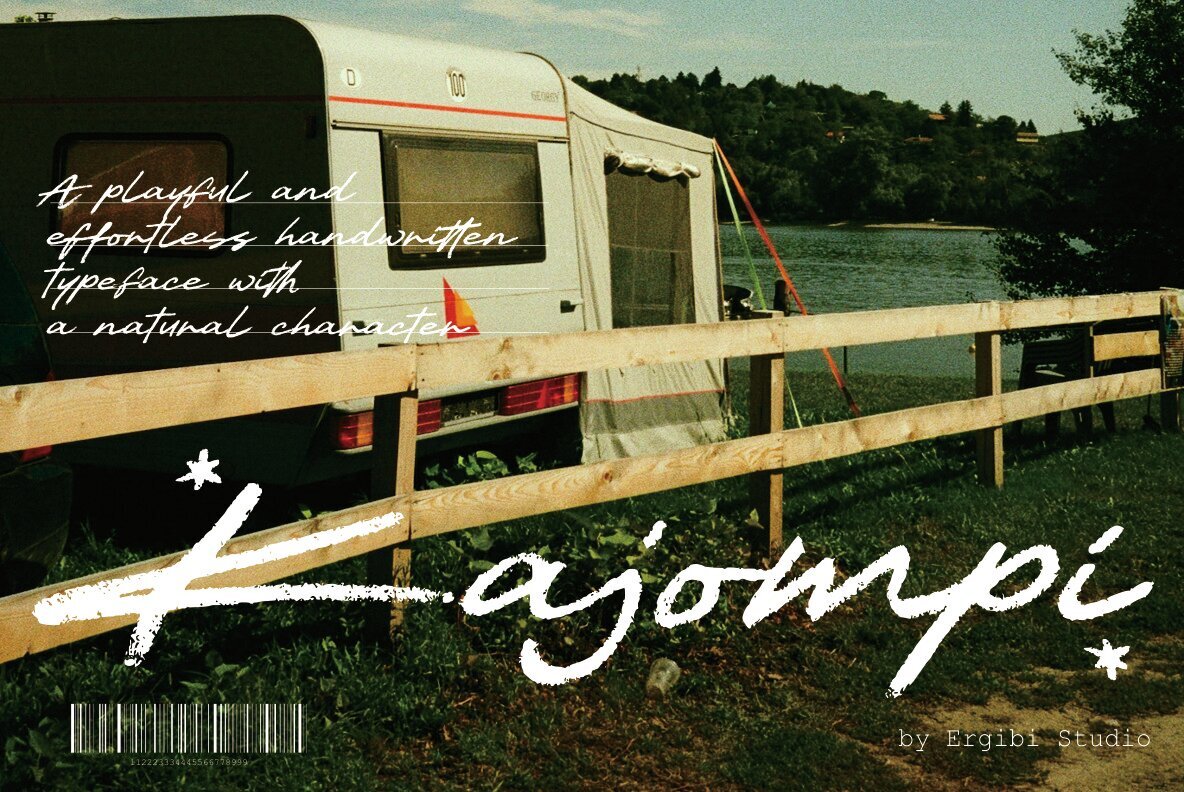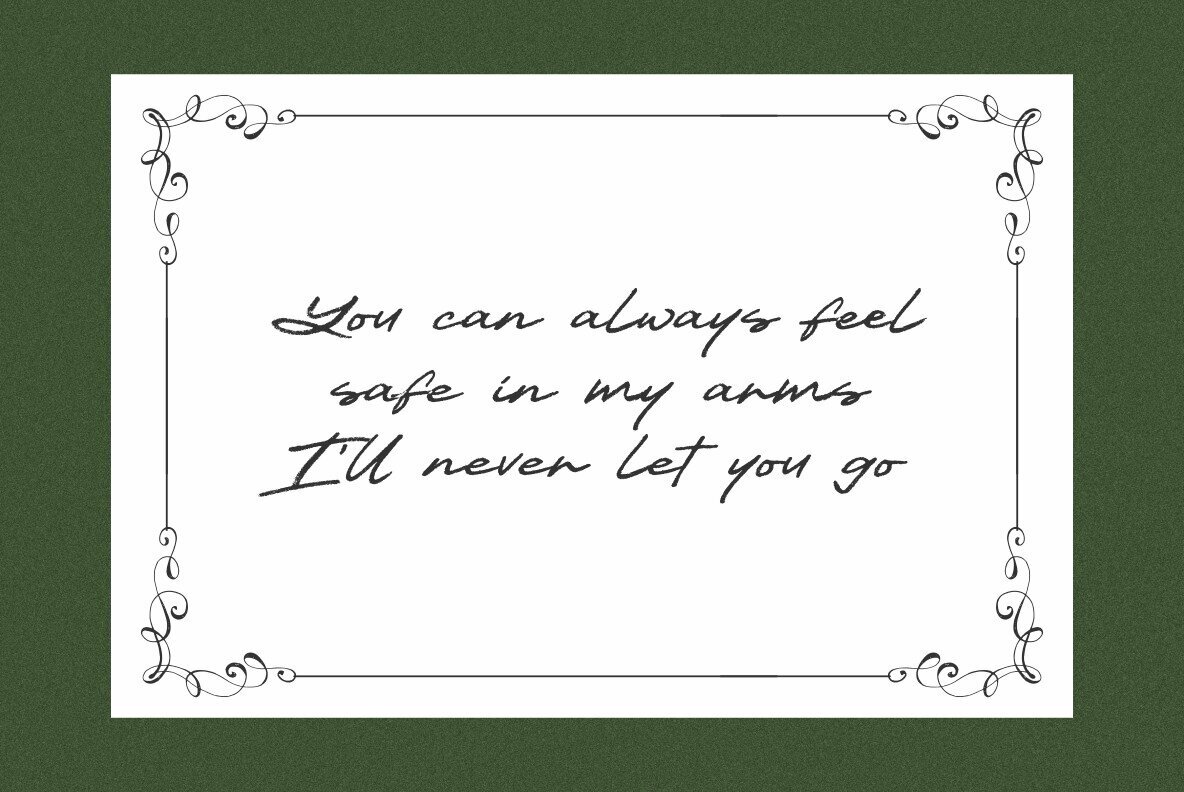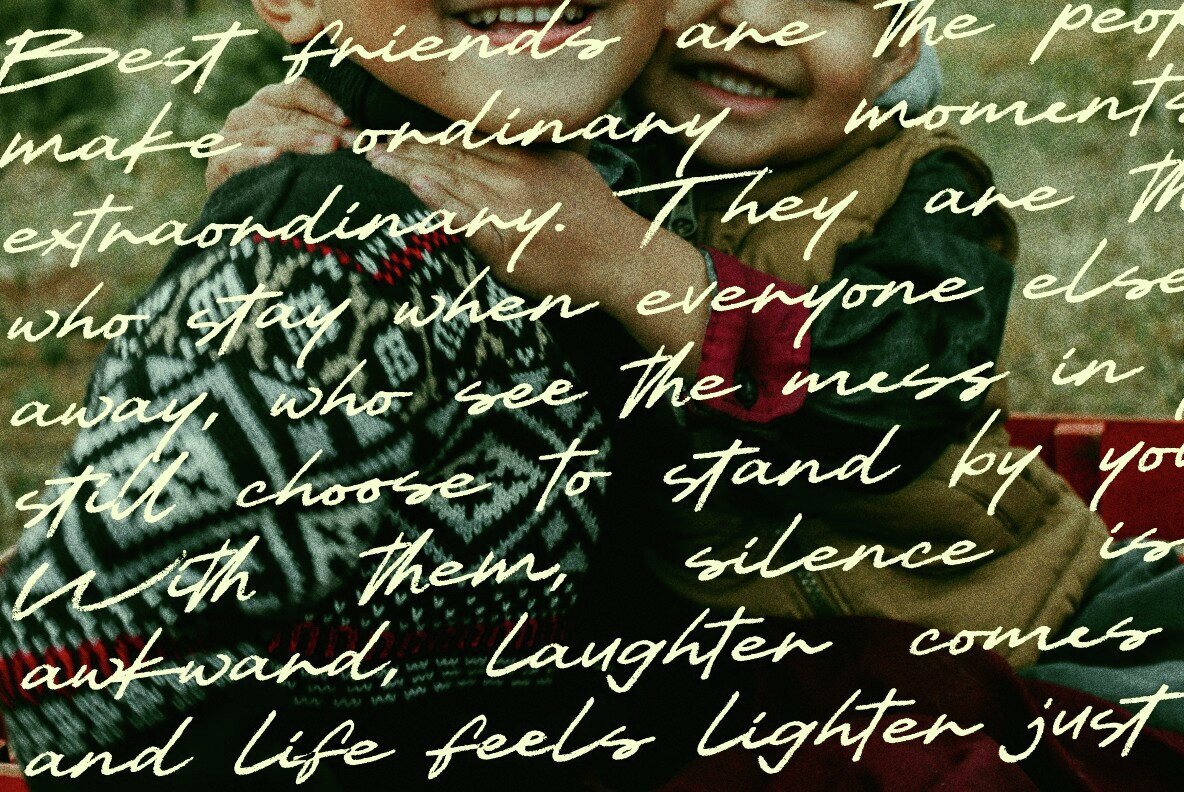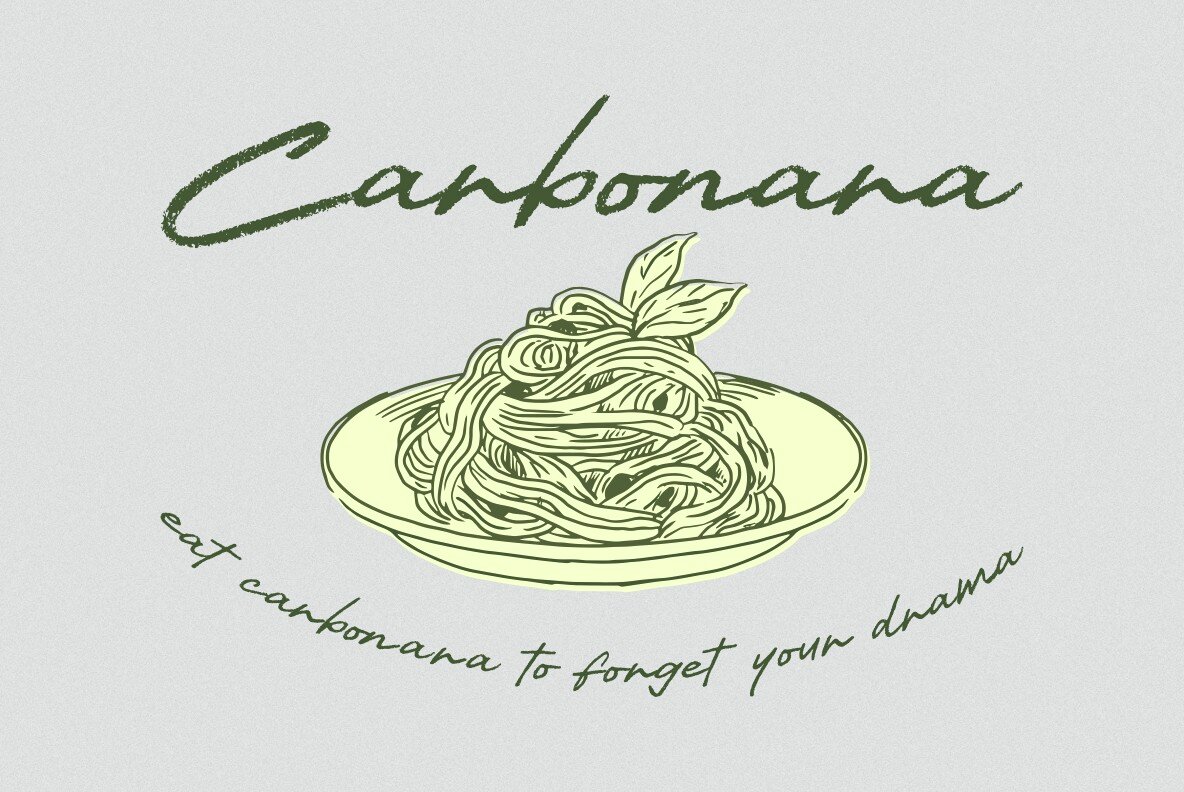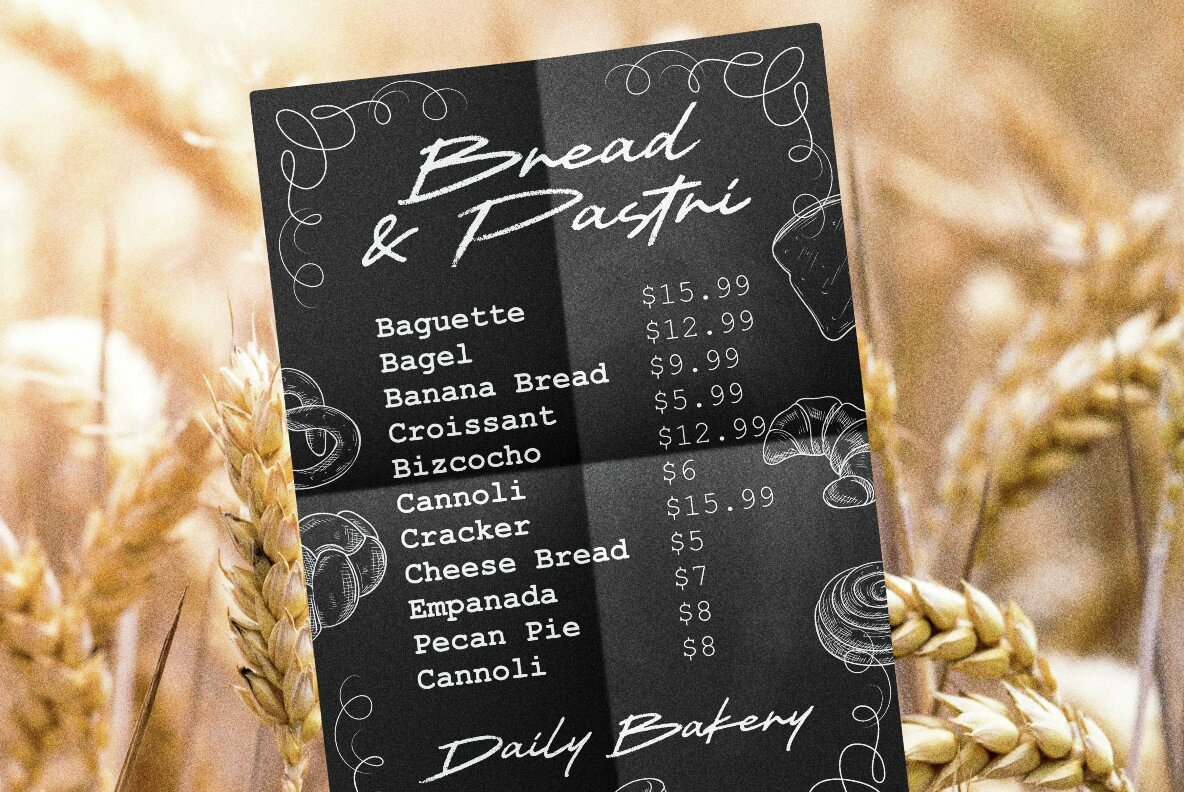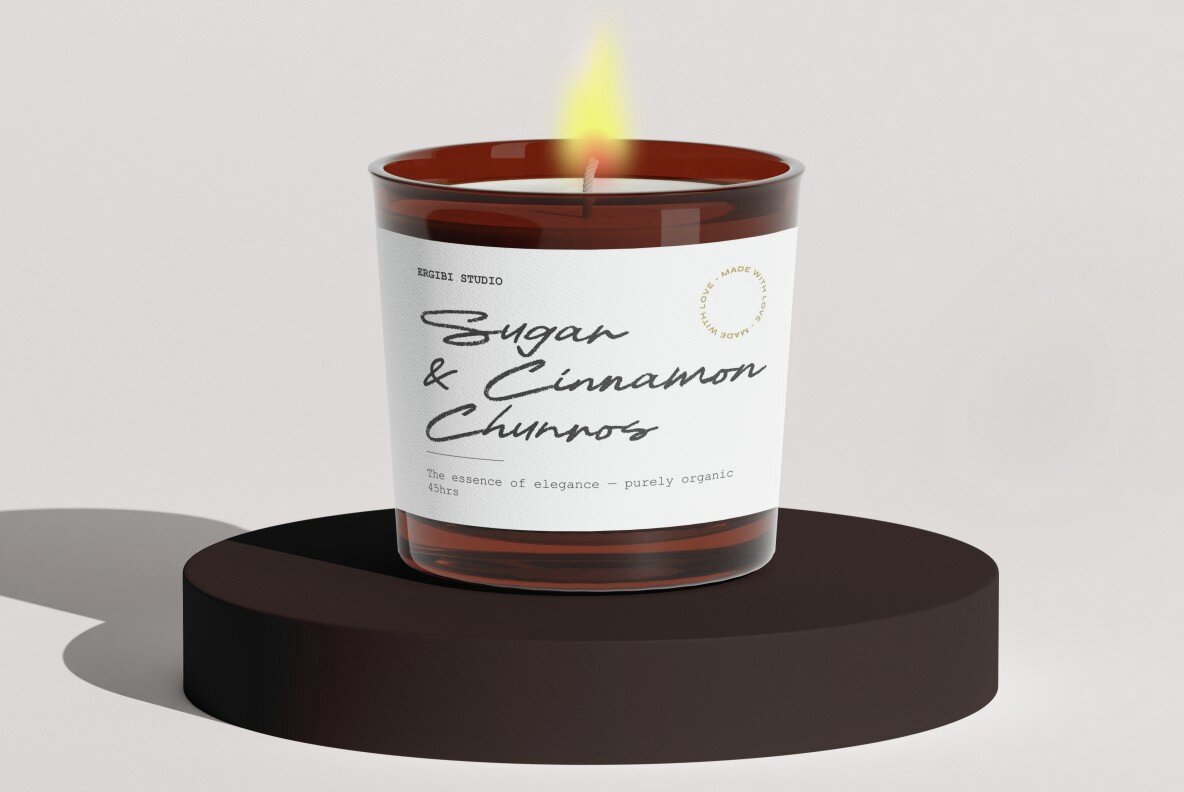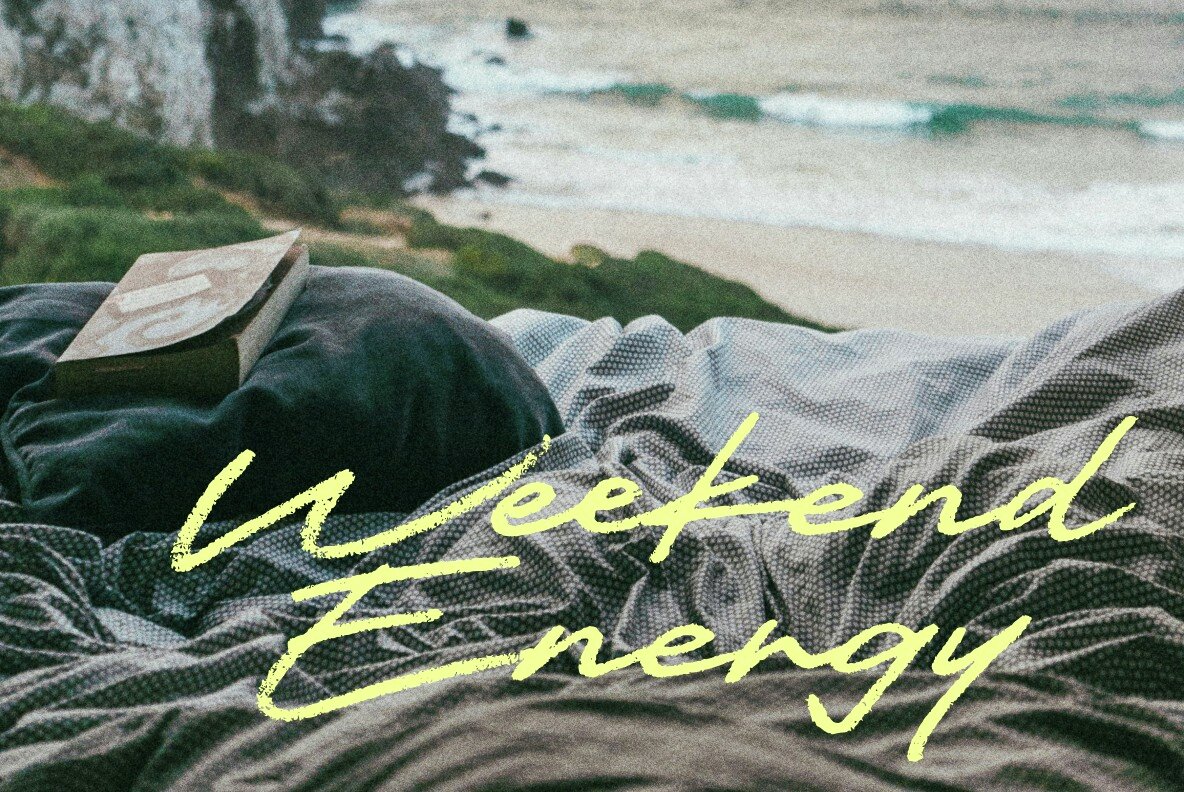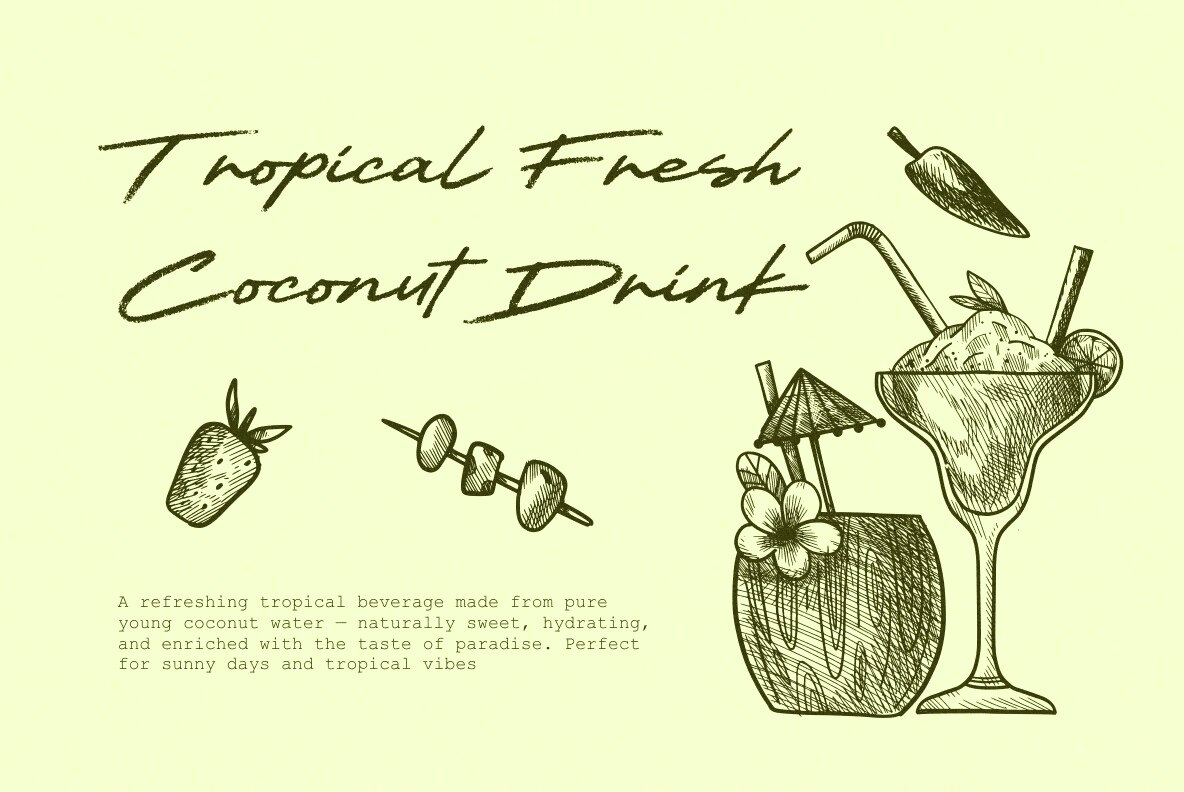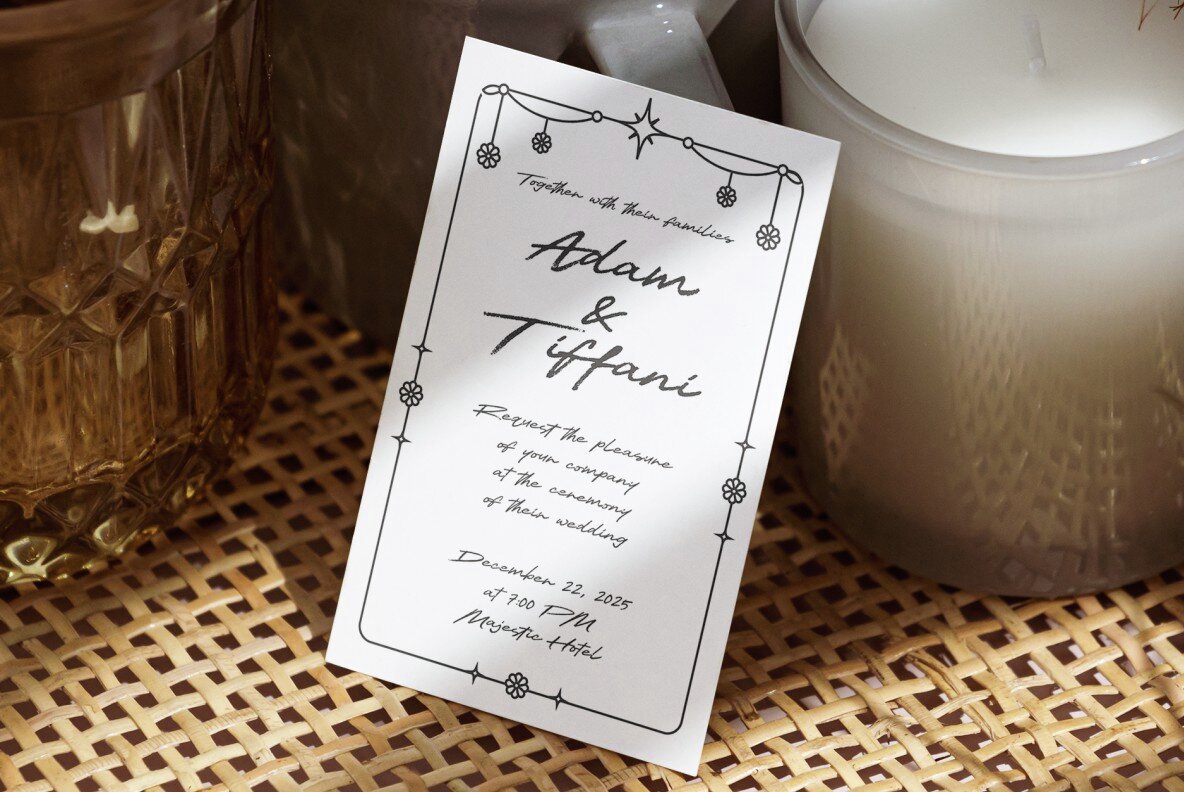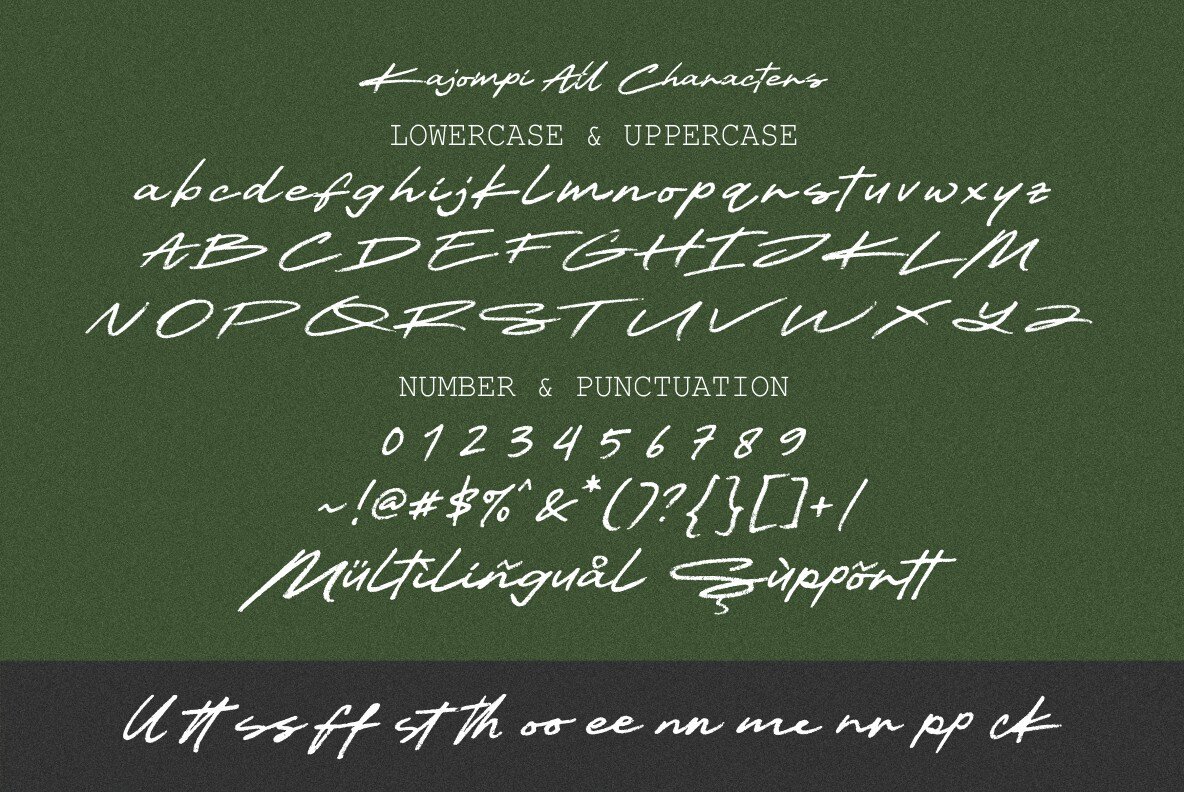
Kajompi Font
Kajompi
Kajompi offers a distinctive handwritten style that conveys genuine warmth and individuality. Its natural, flowing lines introduce an intimate tone to any composition, making it a meaningful choice for designers seeking authenticity. Kajompi blends seamlessly into projects where a handcrafted essence is essential—ensuring each word feels thoughtfully composed. The flexibility of this font makes it well-suited for a range of creative applications. From branding assignments to invitation suites and social media visuals, Kajompi supplies a fresh, approachable look that stands apart from more conventional type options. The handwritten quality resonates particularly well in contexts where emotional connection and personal touch are priorities.Kajompi: Organic Handwritten Font With Authentic Character